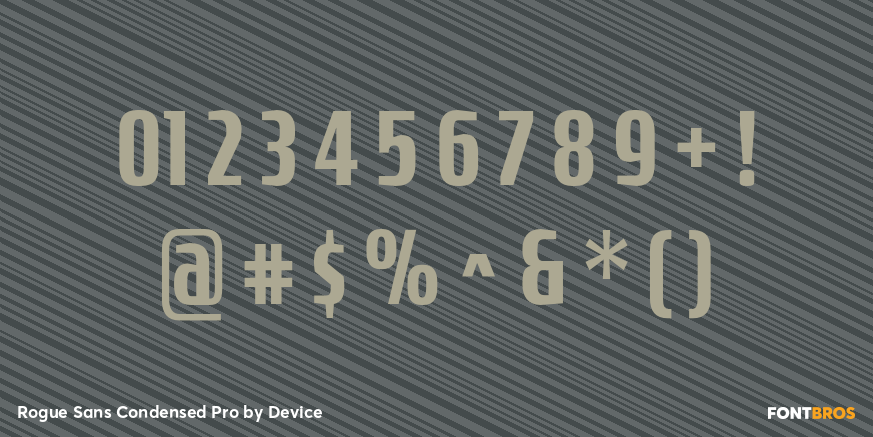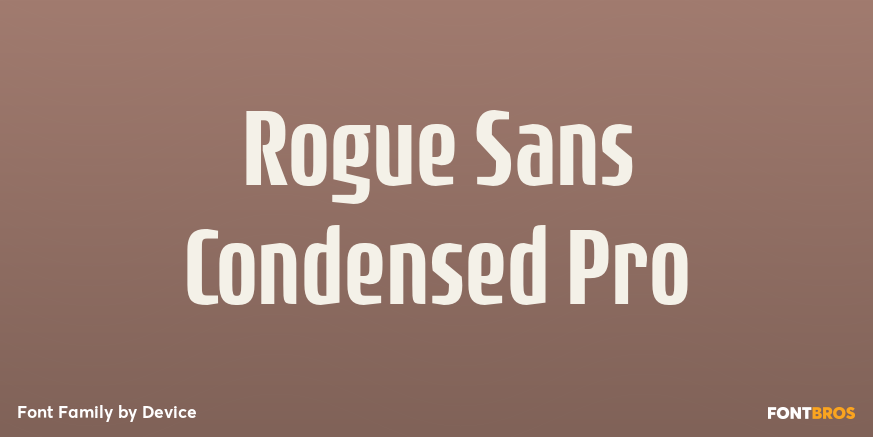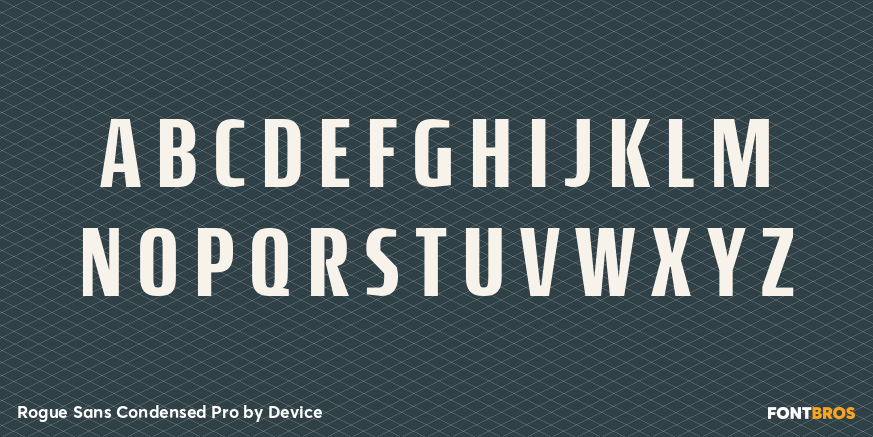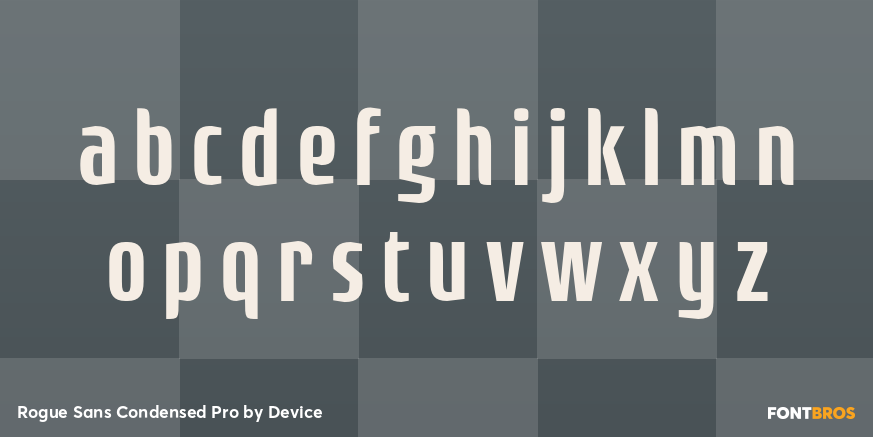
Rogue Sans Condensed Pro
Font Family by Device
Recently the Rogue family was designed as an accompaniment to Paralucent for Loaded, London's notorious lads-mag that had found its design being cloned by the competition and sought something unique to set it apart.